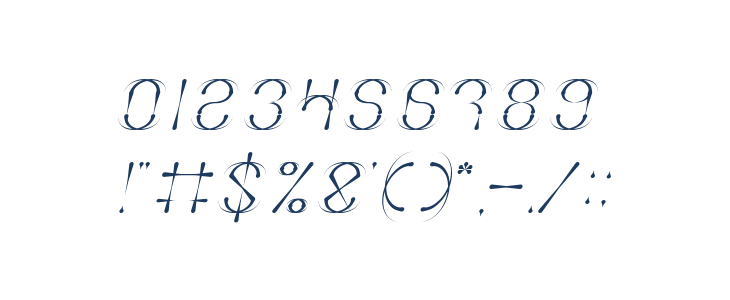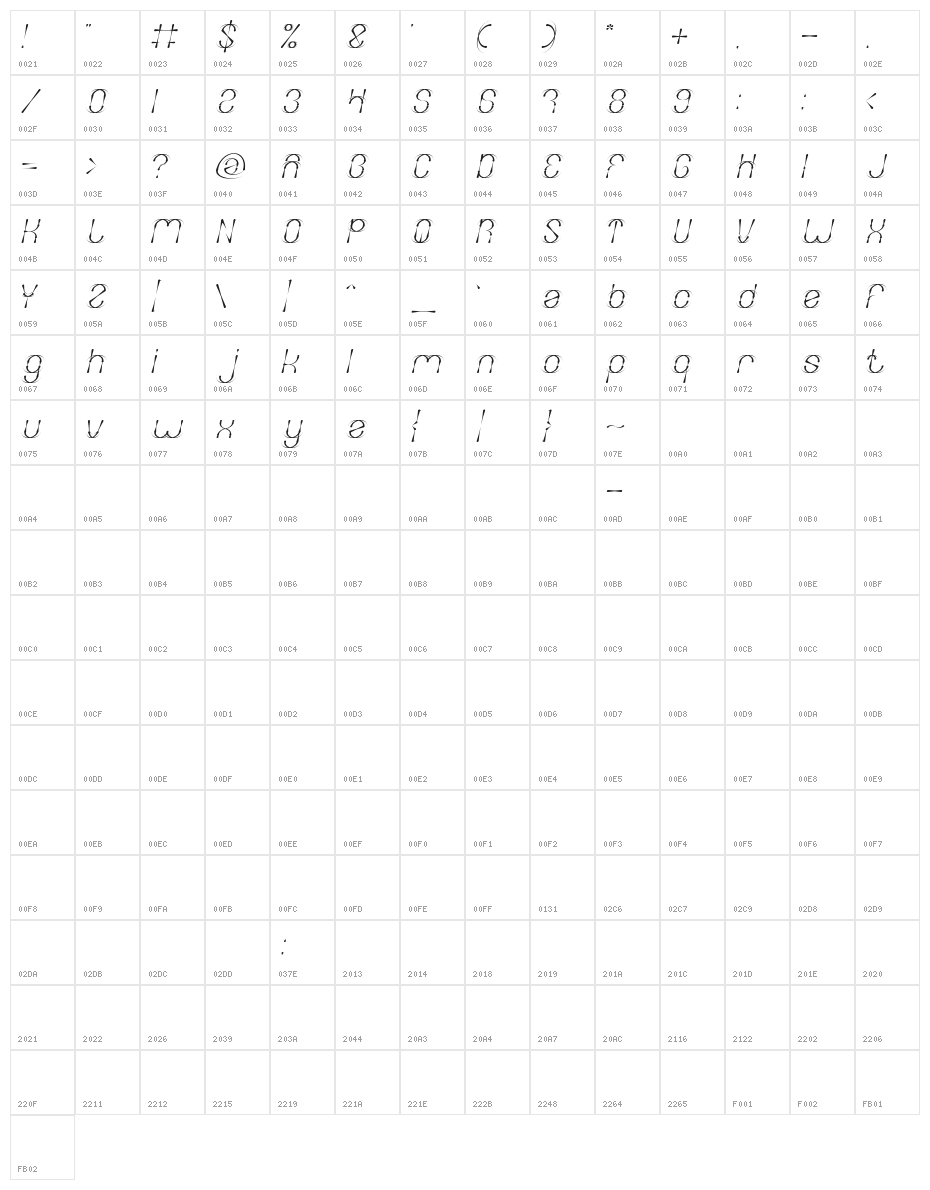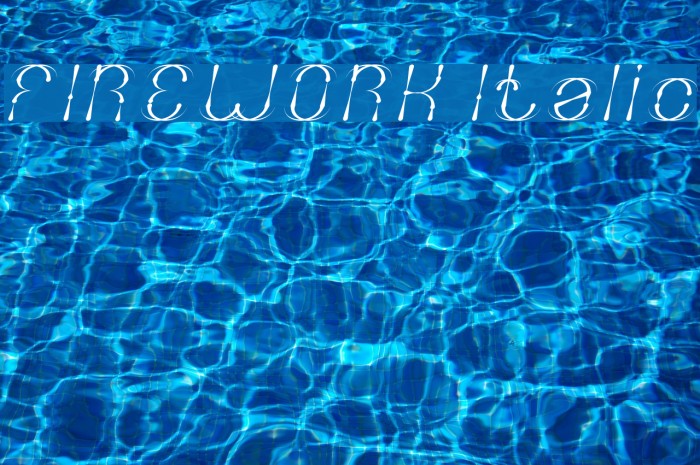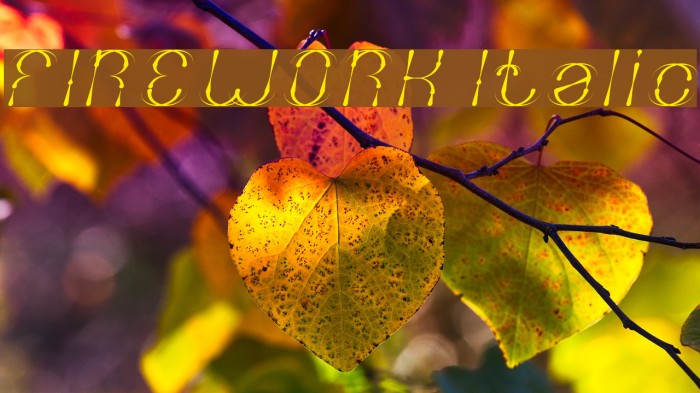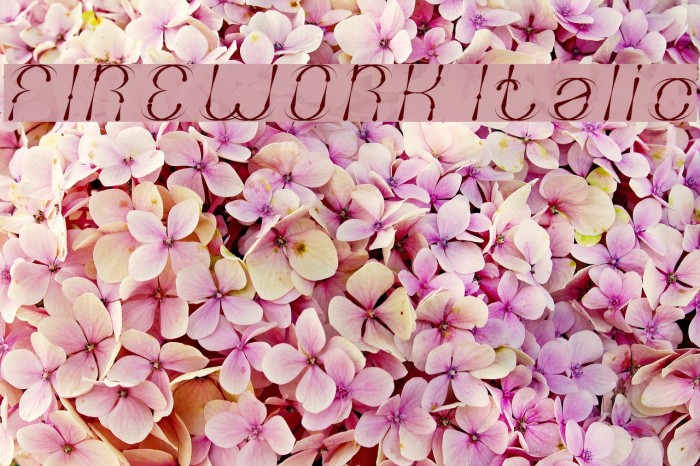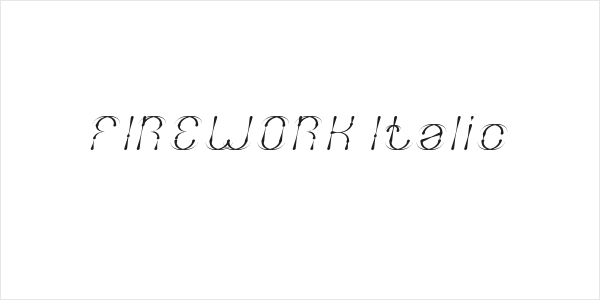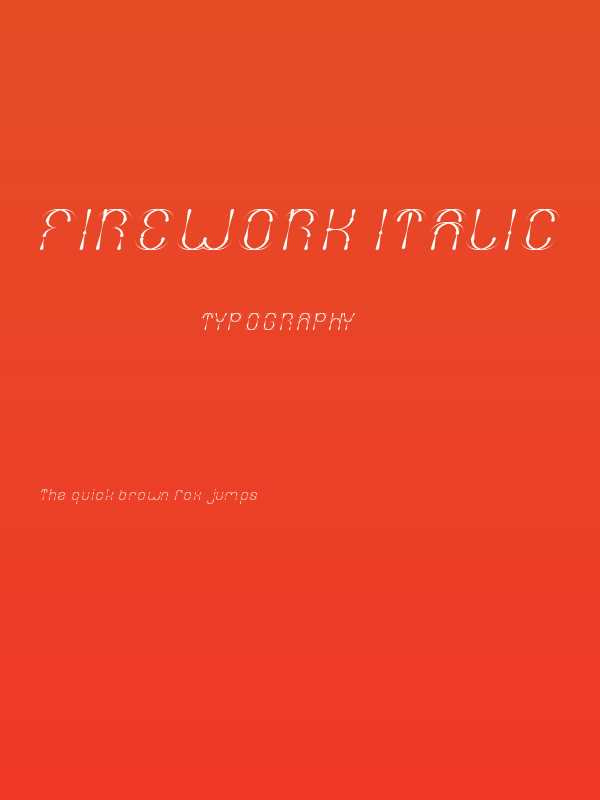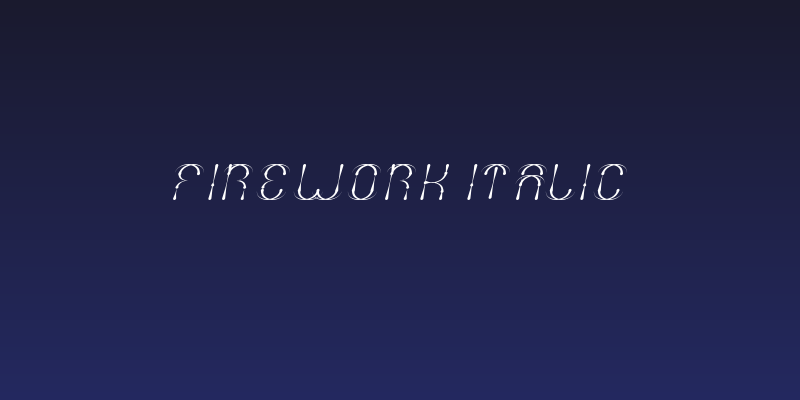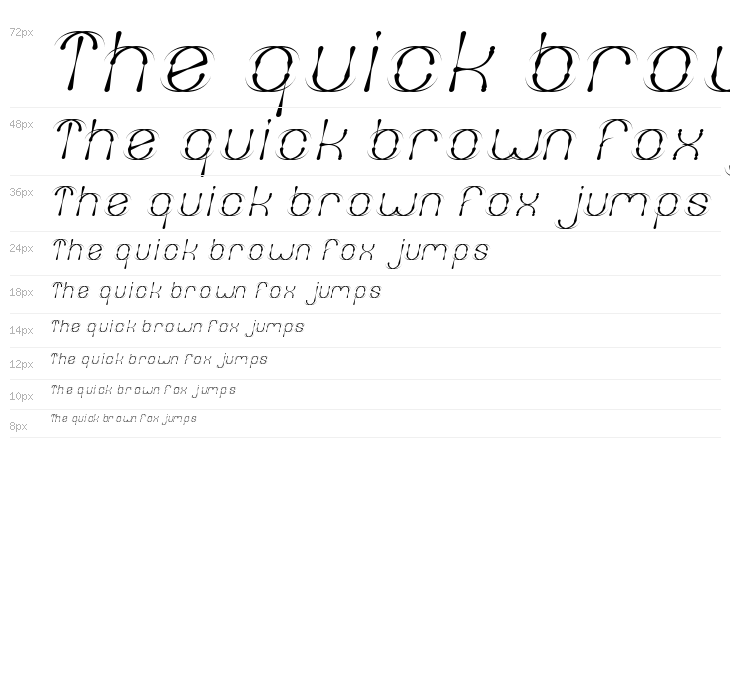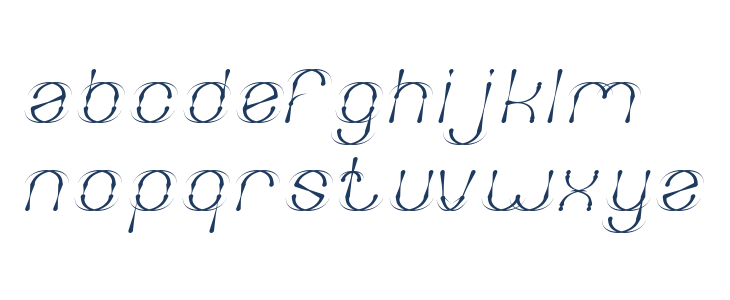
FIREWORK Italic Font
FIREWORK Italic Description
This font features a dynamic and energetic design, characterized by its swirling, firework-like embellishments that give each character a sense of movement and flair. The strokes are thin and elegant, with a consistent italic slant that adds to its fluidity. The uppercase and lowercase letters maintain a cohesive style, with the decorative elements enhancing the overall aesthetic without overwhelming readability. Numbers and special characters are equally adorned, ensuring a uniform appearance across all glyphs. This font is ideal for projects that require a touch of excitement and creativity.
| Proposed Projects | Ideal for event invitations, festive posters, branding for creative industries, and any project needing a lively, decorative touch. |